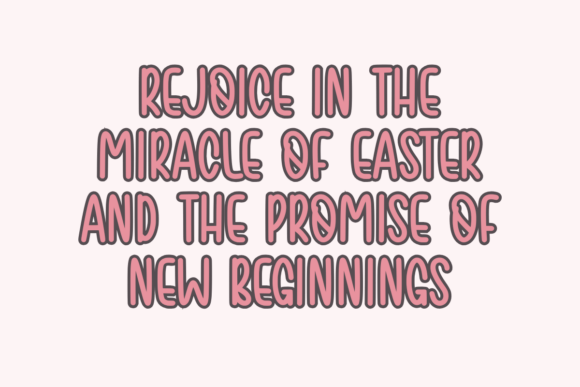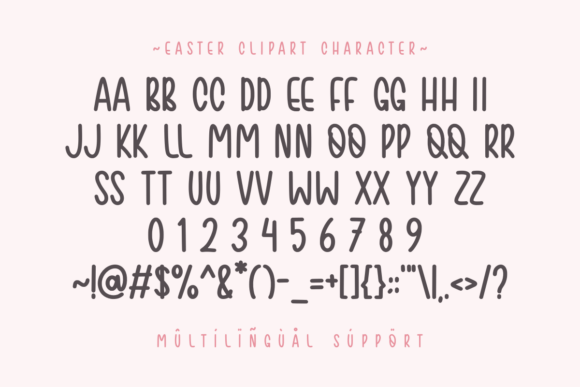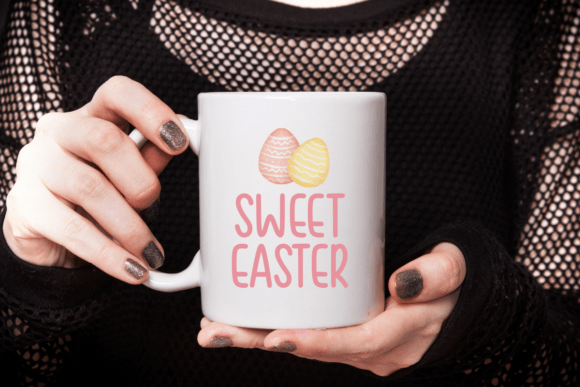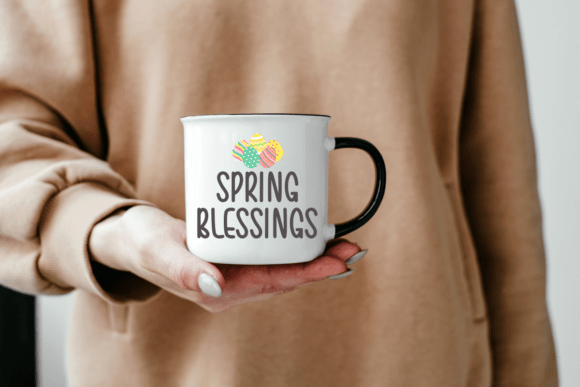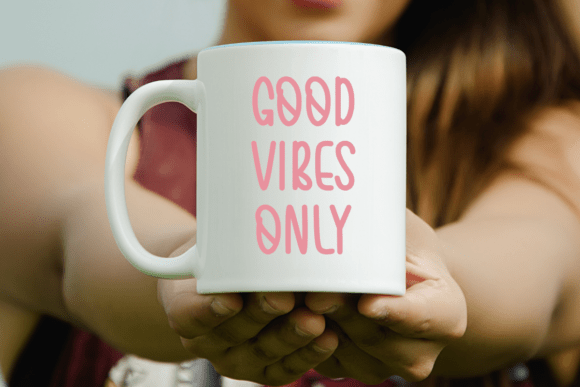
Easter Clipart Font: The Perfect Addition to Your Creative Projects
Are you looking for a fun and playful font to add to your Easter-themed creative projects? Look no further than the Easter Clipart Font! This adorable sans serif font is perfect for bringing a touch of whimsy and charm to your designs. In this article, we’ll take a closer look at the Easter Clipart Font and explore its many uses, from stickers and notes to posters and wall art.
What is Easter Clipart Font?
Easter Clipart Font is a cute and modern sans serif font that is specifically designed for creative projects. Its clean and simple lines make it highly versatile, while its playful charm adds a touch of personality to any design. Whether you’re a designer, crafter, or DIY enthusiast, this font is sure to become a favorite in your collection.
Uses for Easter Clipart Font
So, what can you use the Easter Clipart Font for? The possibilities are endless! Here are just a few ideas to get you started:
- Stickers: Add a personal touch to your stickers with the Easter Clipart Font. Use it to create custom labels, decorations, or even gift tags.
- Notes: Use the Easter Clipart Font to add a playful touch to your notes, journals, or planners. It’s perfect for headers, titles, or even inspirational quotes.
- Planners: Create custom planners, calendars, or organizers with the Easter Clipart Font. Its clean lines and simple design make it easy to read and use.
- SVG Quotes: Use the Easter Clipart Font to create custom SVG quotes for your cutting machine or craft projects. It’s perfect for adding a personal touch to your designs.
- T-Shirts: Create custom t-shirts, hoodies, or tote bags with the Easter Clipart Font. Its playful design makes it perfect for Easter-themed apparel.
- Wall Art: Use the Easter Clipart Font to create custom wall art, posters, or prints. Its modern design makes it perfect for adding a touch of personality to your home decor.
- Cricut: The Easter Clipart Font is perfect for Cricut users! Use it to create custom projects, such as vinyl decals, iron-on designs, or paper crafts.
- Crafting: Use the Easter Clipart Font to add a personal touch to your craft projects, such as embroidery, cross-stitch, or scrapbooking.
- Posters: Create custom posters, flyers, or brochures with the Easter Clipart Font. Its clean design makes it easy to read and use.
- Cards: Use the Easter Clipart Font to create custom greeting cards, invitations, or thank-you cards. Its playful design makes it perfect for Easter-themed cards.
Why Choose Easter Clipart Font?
So, why choose the Easter Clipart Font for your creative projects? Here are just a few reasons:
- Cute and Playful: The Easter Clipart Font is incredibly cute and playful, making it perfect for Easter-themed projects.
- Versatile: Its clean and simple design makes it highly versatile, suitable for a wide range of creative projects.
- Easy to Read: The Easter Clipart Font is easy to read, even at small sizes, making it perfect for use in a variety of projects.
- High-Quality: The Easter Clipart Font is a high-quality font, designed to produce crisp and clear results.